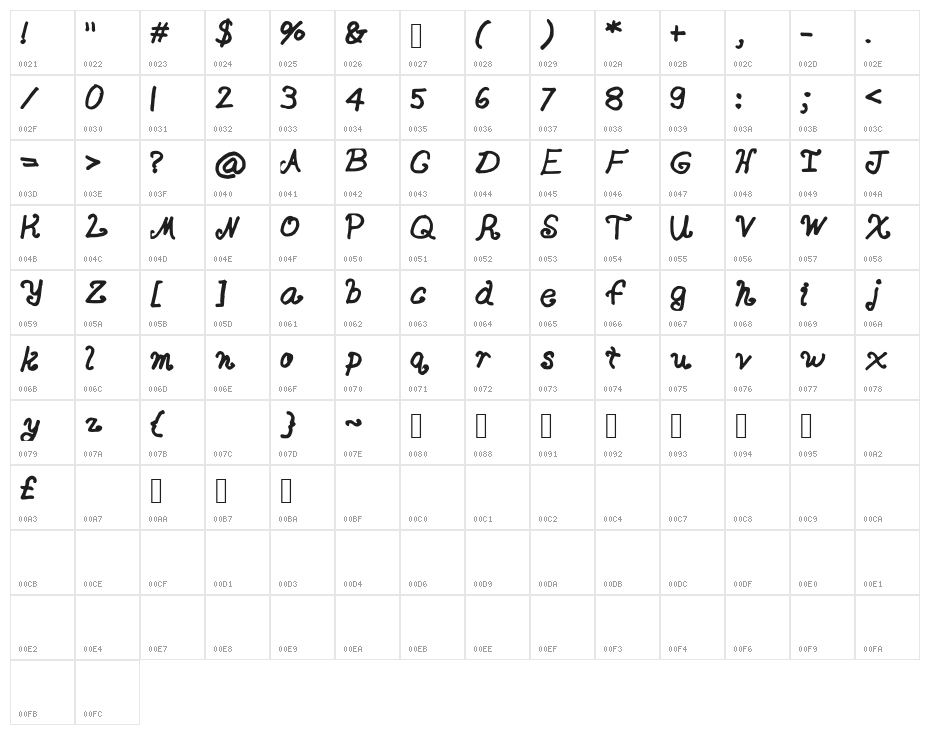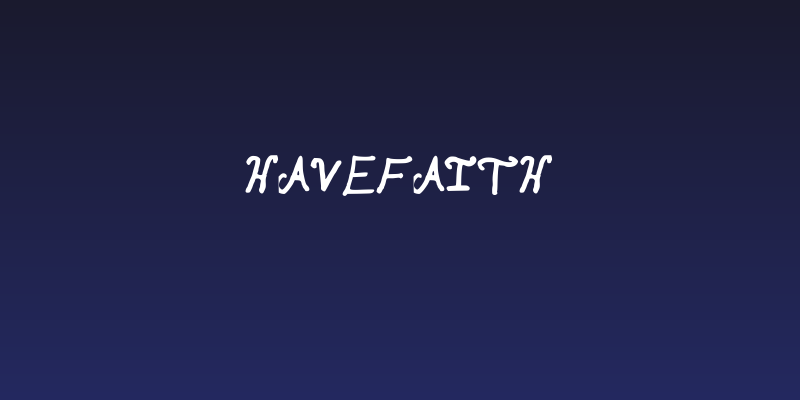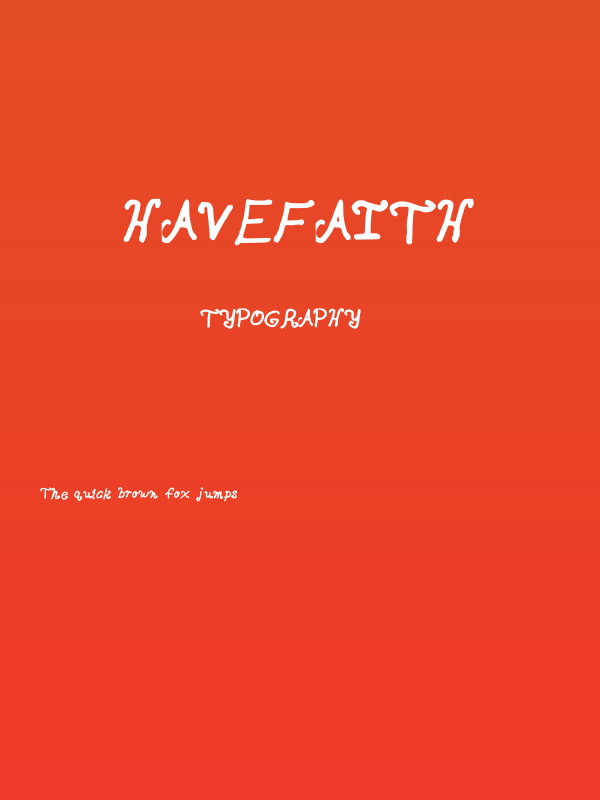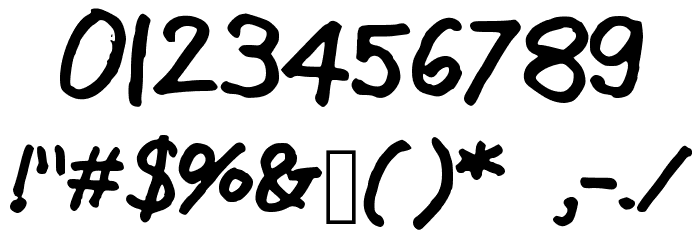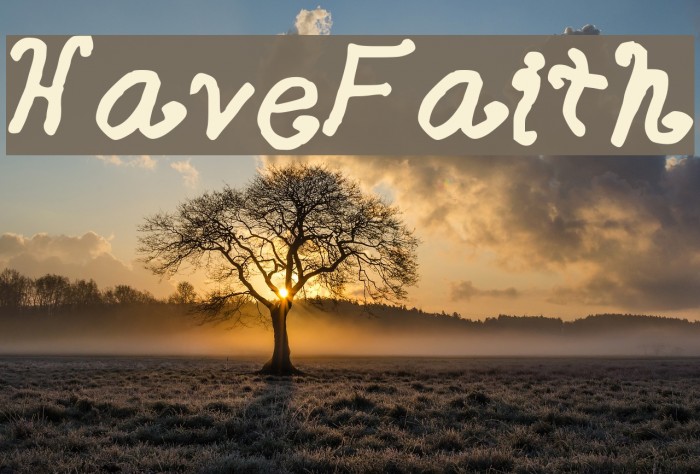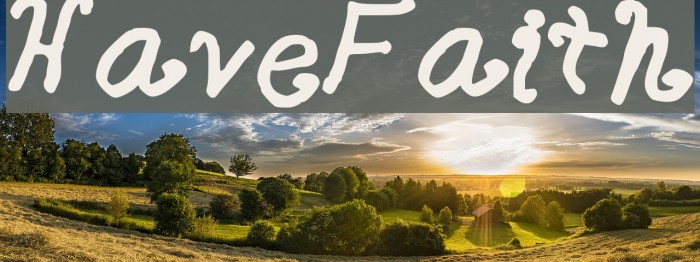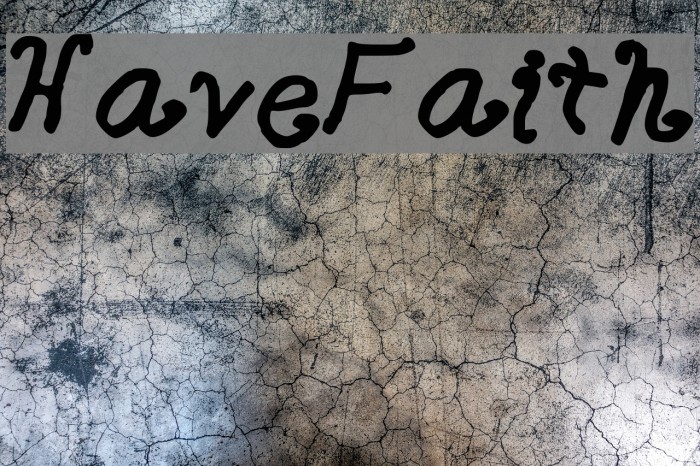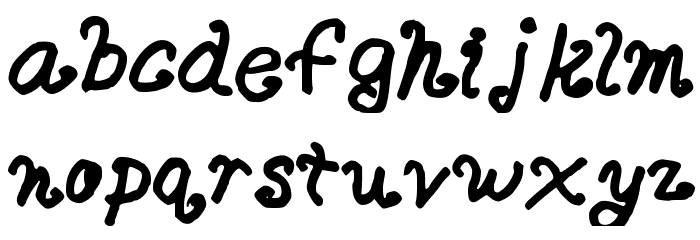
HaveFaith Font
HaveFaith Description
This font features a playful and casual script style with a handwritten appearance. The letters are bold and slightly irregular, giving them a lively and dynamic feel. The uppercase letters are distinct with a slight slant, while the lowercase letters maintain a consistent flow, enhancing the handwritten aesthetic. The numbers and special characters follow the same playful style, making them suitable for informal and creative projects. The overall design is approachable and friendly, making it ideal for projects that require a personal touch.
| Proposed Projects | Greeting cards, invitations, personal branding, children's books, and creative posters. |